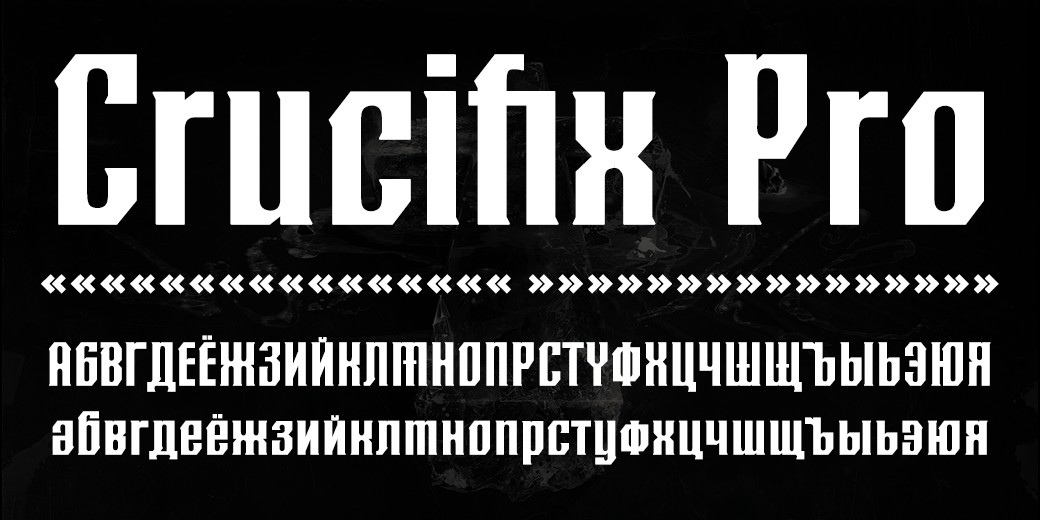
Crucifix Pro Font
Crucifix Pro Font is perfect for religious institution branding, church communication materials, spiritual retreat marketing, faith-based organization signage, sacred event invitations, Christian publishing projects, religious education resources, and devotional design applications.
What makes Crucifix Pro Font exciting is its sacred reverence that embodies spiritual devotion and holy tradition with ecclesiastical sophistication and faith-based authenticity. The font features dignified letterforms with sacred proportions and devotional character that evoke cathedral architecture, illuminated manuscripts, and the timeless beauty of Christian artistic tradition and spiritual expression. Its distinctive sacred styling and religious appeal communicate faith, reverence, and spiritual authority, making every message feel blessed with divine grace and touched by the holy beauty of Christian tradition and ecclesiastical excellence.
The Crucifix Pro Font family includes regular weight with uppercase and lowercase letters, numerals, punctuation marks, and comprehensive religious symbols. Premium versions often feature multiple weights and sacred alternates that provide complete typographic solutions for complex religious and spiritual applications.
This reverent sacred typeface brings instant spiritual credibility and ecclesiastical authority to any faith-based project. Crucifix Pro Font Free Download delivers exceptional results for religious organizations and spiritual institutions seeking to communicate Christian faith, sacred tradition, and spiritual excellence to congregations and faith communities.
The devotional character of Crucifix Pro Font makes it particularly valuable for churches, Christian schools, and religious publishing houses. Its excellent readability ensures sacred texts and spiritual communications remain clear while maintaining the distinctive ecclesiastical aesthetic that appeals to faithful audiences seeking authentic Christian experiences and spiritual depth.
Religious community marketers appreciate how Crucifix Pro Font effortlessly conveys spiritual authenticity and sacred tradition. The font's dignified proportions and devotional details create trustworthy spiritual materials that establish connections with audiences who value Christian faith, religious heritage, and the sacred beauty of ecclesiastical tradition and spiritual devotion.
The versatile spirituality of this typeface extends to Christian education, faith-based counseling, and religious heritage preservation where sacred authenticity enhances spiritual credibility and religious appeal. Crucifix Pro Font Free Download provides creative professionals with an essential tool for developing memorable, faith-driven designs that resonate with audiences who embrace Christian spirituality, sacred tradition, and the reverent beauty of ecclesiastical excellence in their religious and spiritual experiences.